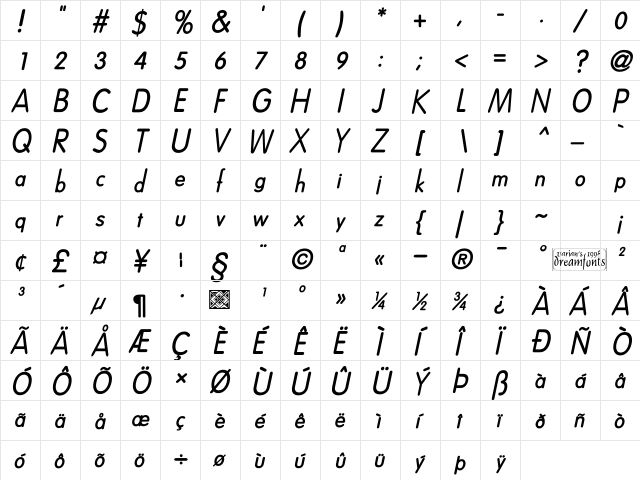
Dreamspeak BoldItalic
Design Context for Dreamspeak Typeface
Dreamspeak takes a measured approach to typography — its balanced proportions and neutral character make it a reliable workhorse for both digital and print work. The dynamic lean of this cut emphasises speed and emphasis in any layout. Its bold stroke weight gives it real presence on the page.
Pro Tip: Try Dreamspeak for annotation and caption copy alongside an upright companion — the contrast in angle creates a dynamic but ordered typographic system.